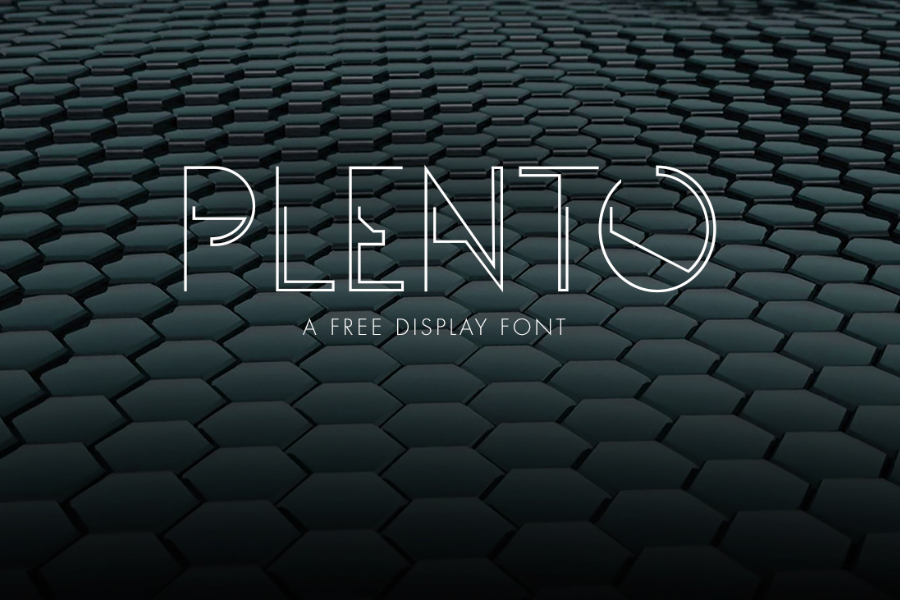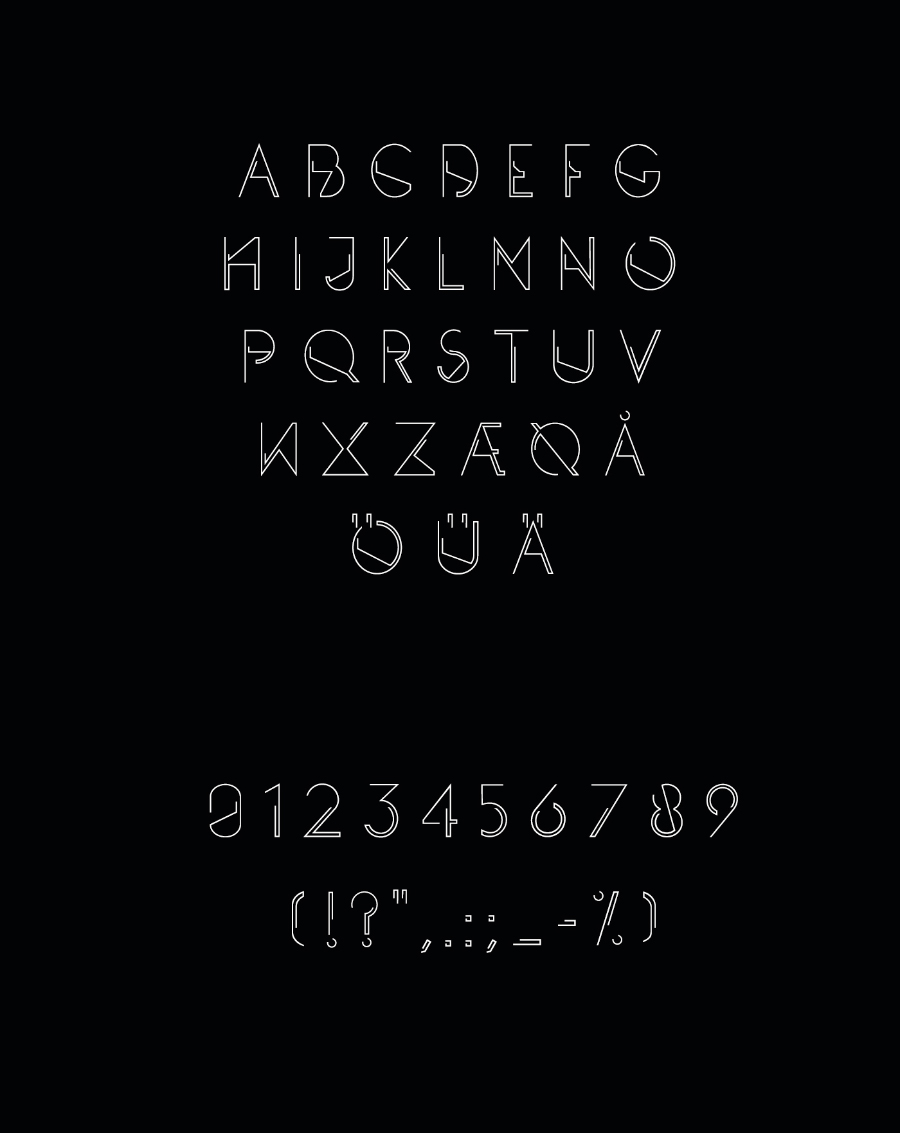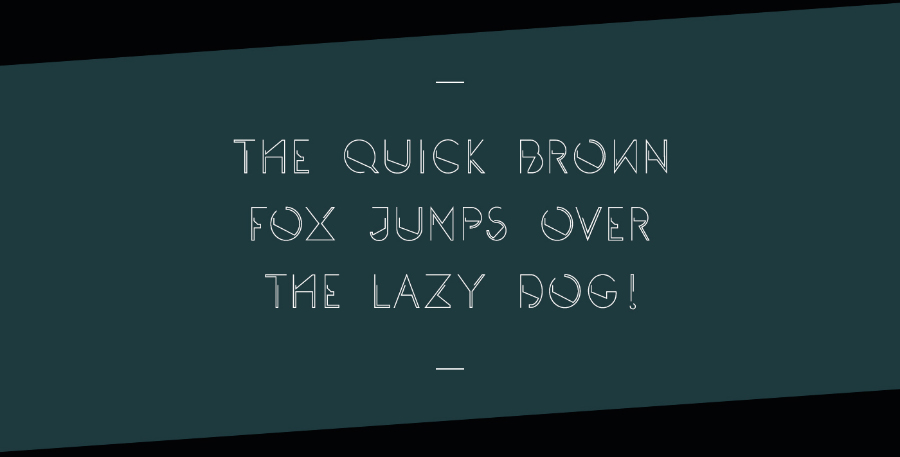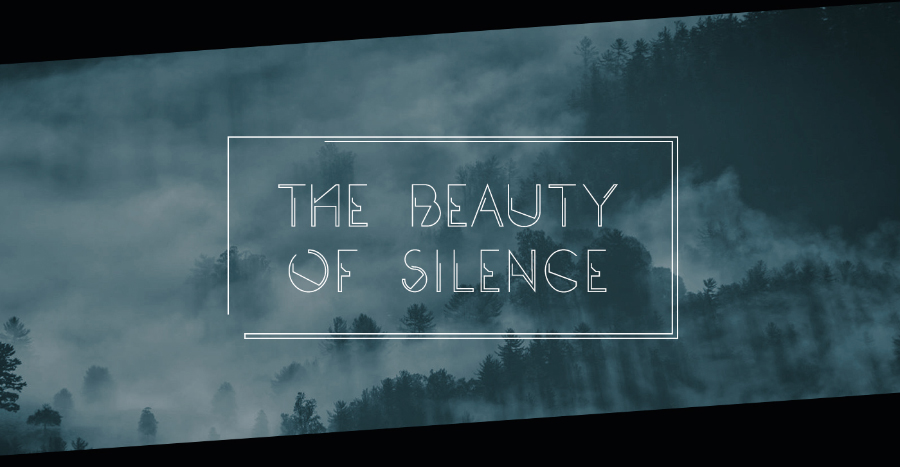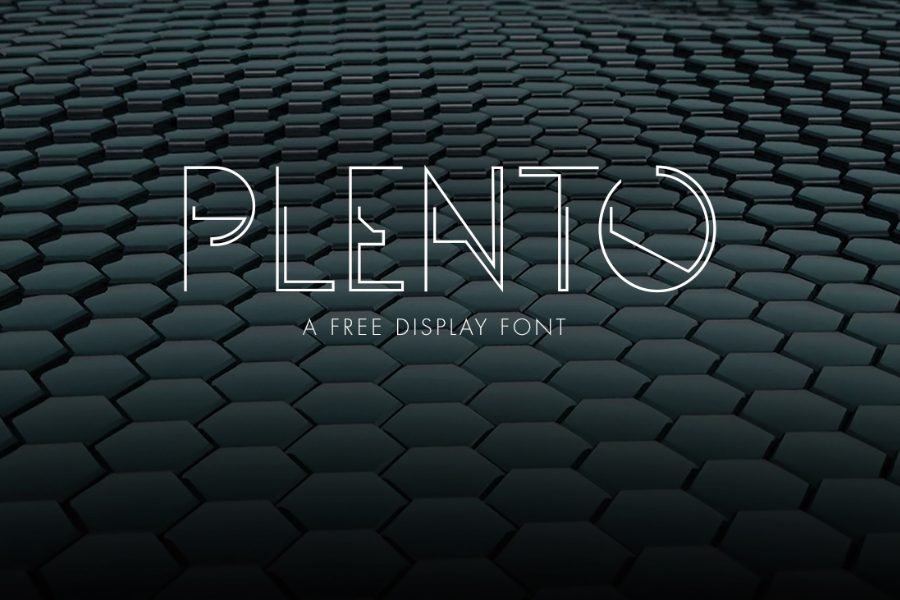
Plento is a space-look display font that is arranged neatly and geometrically. This freebie contains Plento regular that is very useful for logotype, headlines, apparel, album art and more of your creative mind ever desired!
Plento – Free Typeface